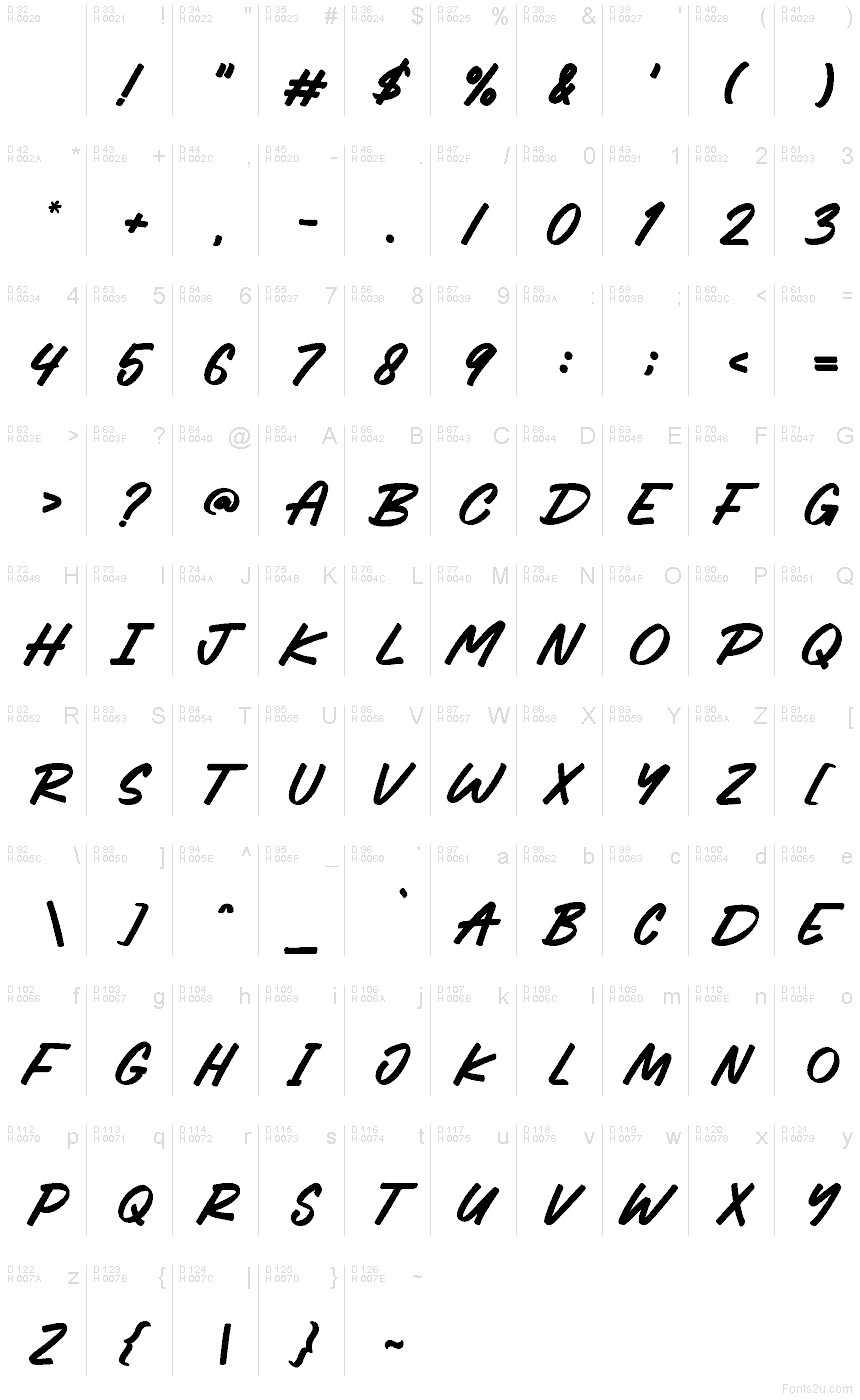
NCL Bovage Toiqora
NCL Bovage Toiqora font by Enxyclo Studio is a free handwritten font with a fast, forward-leaning rhythm. Its inky strokes feel scraped by a broad marker—chunky, slightly gritty, and full of motion—so headlines snap into place with real attitude. Letters lock together with a lively slant, giving logos and titles an instant sense of speed without getting messy.
Using NCL Bovage Toiqora, your work shines on sports branding, streetwear tags, event posters, energy drinks, racing graphics, thumbnails, and bold packaging. The tight flow and punchy texture amplify urgency and action while staying legible at a glance. For balance, pair this free font with a clean, unobtrusive sans-serif for supporting text, and keep it large to let the brush character breathe.